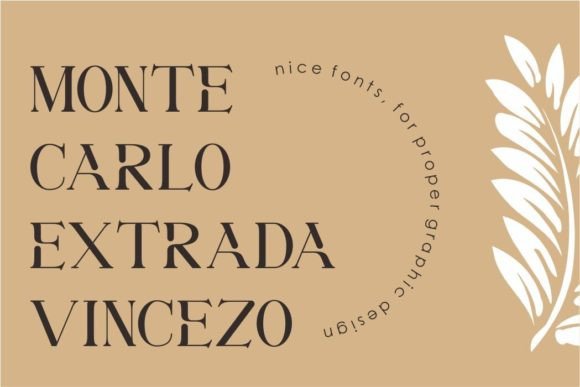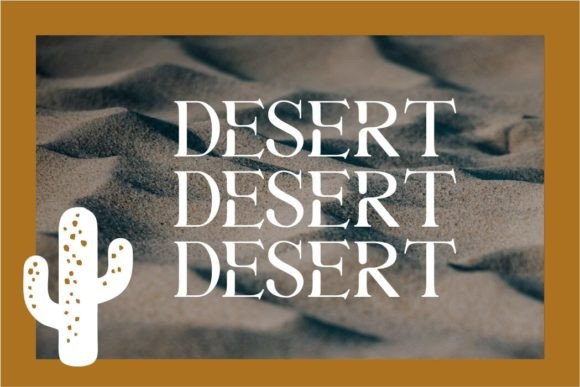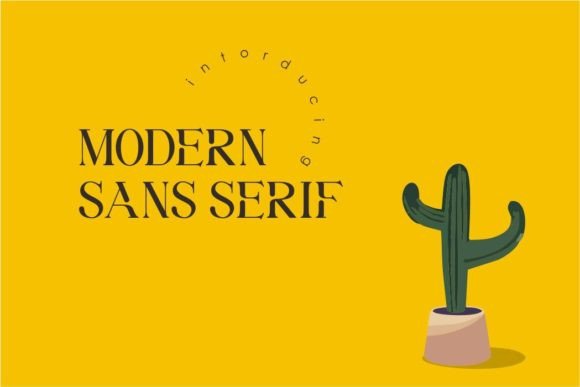
Introduction to Medifa Font
Have you ever been stuck on a design project, scrolling through fonts, searching for that perfect match? You know, that one font that elevates your entire creative project from good to great? For many designers, that moment of triumph is just around the corner with the introduction of the Medifa Font.
As a versatile and high-quality design resource, the Medifa Font is perfect for designers seeking a touch of elegance and sophistication in their work. Whether you’re creating branding materials, invitations, or editorial content, this font is sure to add a sense of simplicity and glamour to your designs.
What sets Medifa Font apart from other fonts is its flexibility, making it an ideal choice for designers who value versatility and high-quality results. With its transparent background and sleek design, this font is a must-have for any creative project, and the best part? It’s available for free download, making it an invaluable resource for designers of all levels.
Key Features of Medifa Font
- High-quality, professional design suitable for creative projects
- Unique, modern design style that can add a touch of elegance to any creative project
Honest Review: Medifa Font
I recently had the chance to work with the Medifa Font, and I must say it’s been a game-changer for my design projects. This font is a high-quality design resource that I’ve found myself going back to time and time again.
- ✨ The Medifa Font is incredibly versatile, making it perfect for a wide range of creative projects.
- ✨ The font’s sleek and modern design makes it ideal for use in branding and marketing materials.
- ⚠️ One thing to be aware of is that the Medifa Font doesn’t come with a transparent background option, which can be limiting for some projects.
- ⚠️ Additionally, the font’s character set is a bit limited, so you may find yourself needing to supplement with other fonts in certain situations.
Overall, I’m really impressed with the Medifa Font. While it may not be perfect, its strengths far outweigh its weaknesses. I’ve found it to be a valuable addition to my design toolbox, and I’m confident you will too.
The Medifa Font is commonly used in graphic design, digital art, and branding projects. It is also used in various creative fields such as fashion, architecture, and interior design.